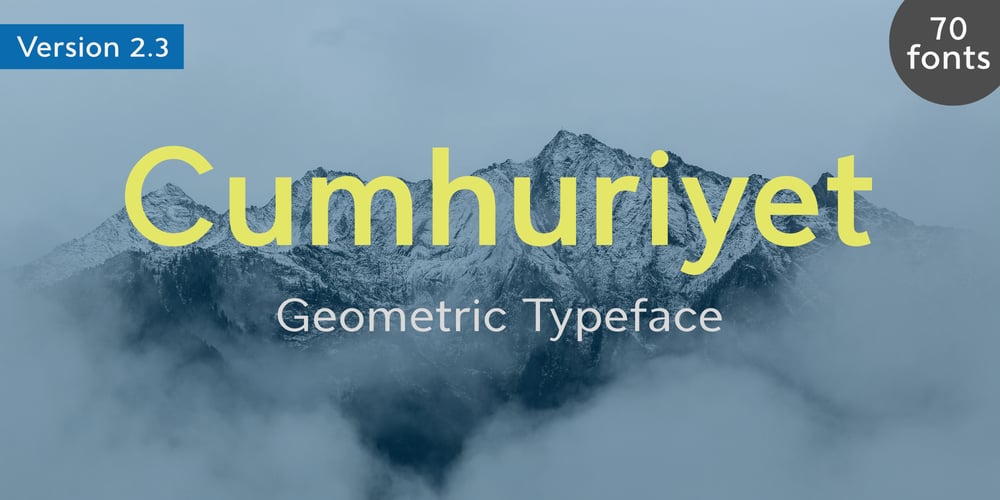
Cumhuriyet Font Family was designed by İsmail AYDIN and published by Fontuma. Cumhuriyet contains 70 styles and family package options. Cumhuriyet TypefaceCumhuriyet means “a form of government in which the nation holds sovereignty in its own hands and exercises it through elected representatives for certain periods of time.” The reason why I gave this name to the font is that 2023 is the hundredth anniversary of the Republic of Turkey, founded by Atatürk. The sans serif Cumhuriyet font serves many different design purposes thanks to the seventy styles it contains. In terms of weights, Cumhuriyet font has Extralight, Light, Regular, Medium, Semibold, Bold and Extrabold styles. All these weights also support Condensed, Narrow, Normal, Wide and Expanded styles from narrow to wide. Thus, when we say Cumhuriyet font, we are talking about a family consisting of seventy fonts. With its geometric features, the Cumhuriyet font has received many innovations and improvements with the second version. First of all, the Cumhuriyet font has been rearranged in terms of the space between letters (kerning), the space between words (tracking) and the space between lines (leading). The design of most of the glyphs in the font, especially the Arabic fonts, was renewed and thus the font gained a more stable and aesthetic structure. In addition, with the second version, the font gained new opentype features and existing opentype features were also improved. Opentype features added to the Cumhuriyet font are as follows:● Slashed zero● Stylistic alternatives for the letters a, g and l● Character variation for eleven individual Latin letters● Old style● Proportional● Tabular● Numerator● Denominator● Fraction/Alternate fraction● Ordinal (a-z)● Small capital● Petite capitalUndoubtedly, one of the biggest works carried out regarding the Cumhuriyet typeface is related to Small capital and Petite capital letters. Small capitals can be derived from both lowercase and uppercase letters, and most diacritics in the Latin alphabet are supported. Another innovation is the addition of Petite capital letters to the Cumhuriyet typeface. Cumhuriyet typeface contains fonts that offer multi-purpose usage opportunities, especially in printed products, media, digital environments and in every field of writing. As Fontuma Foundry, we actually designed not this user-friendly typeface, but the happiness and comfort you will feel when pressing the keyboard keys.